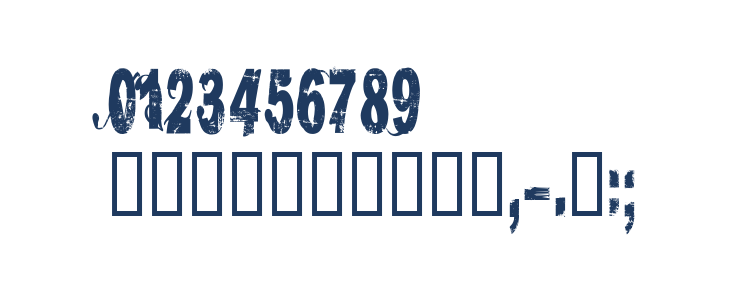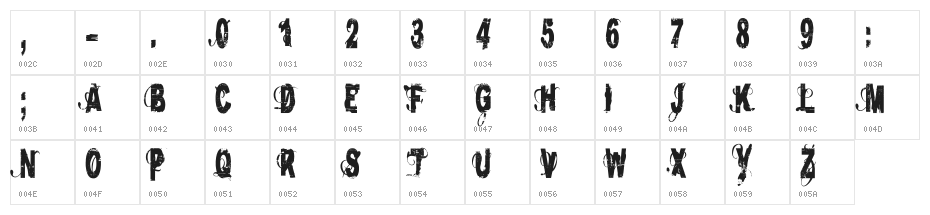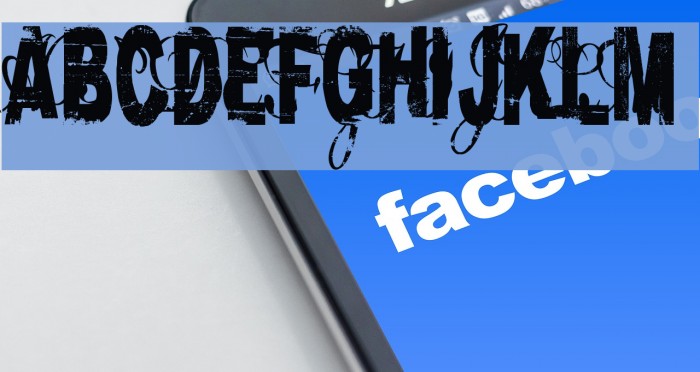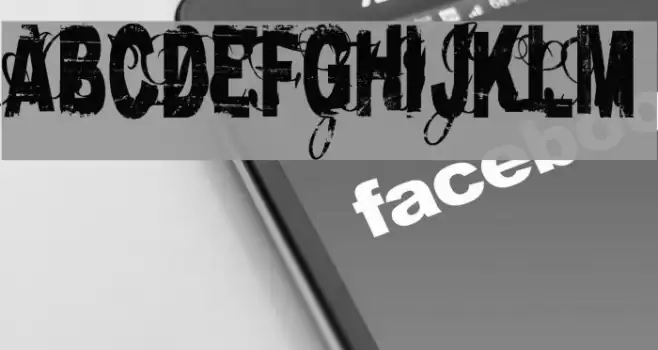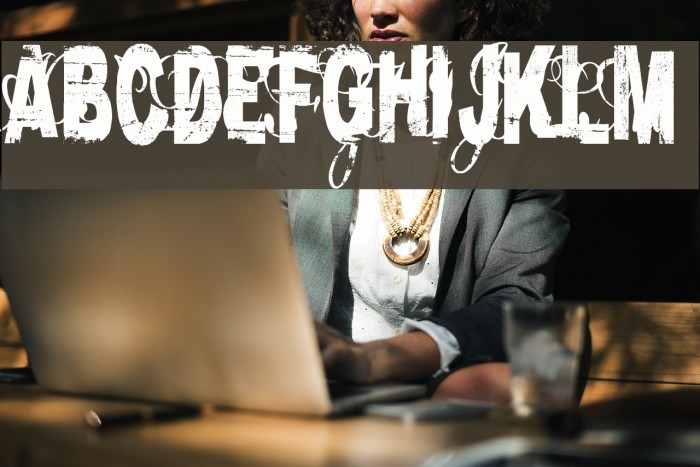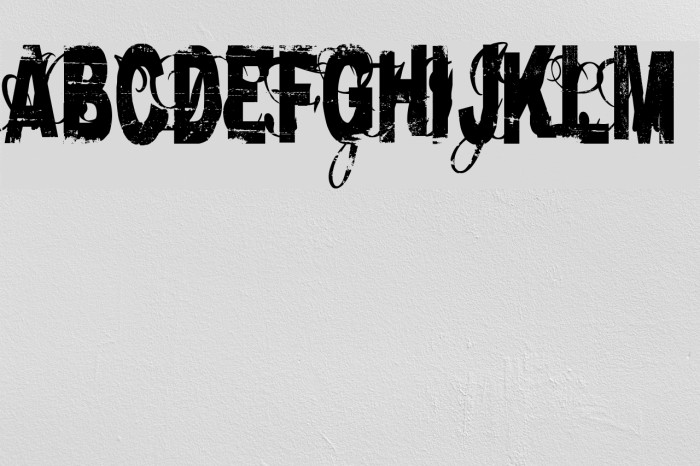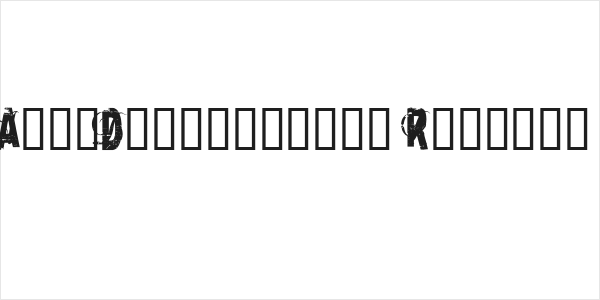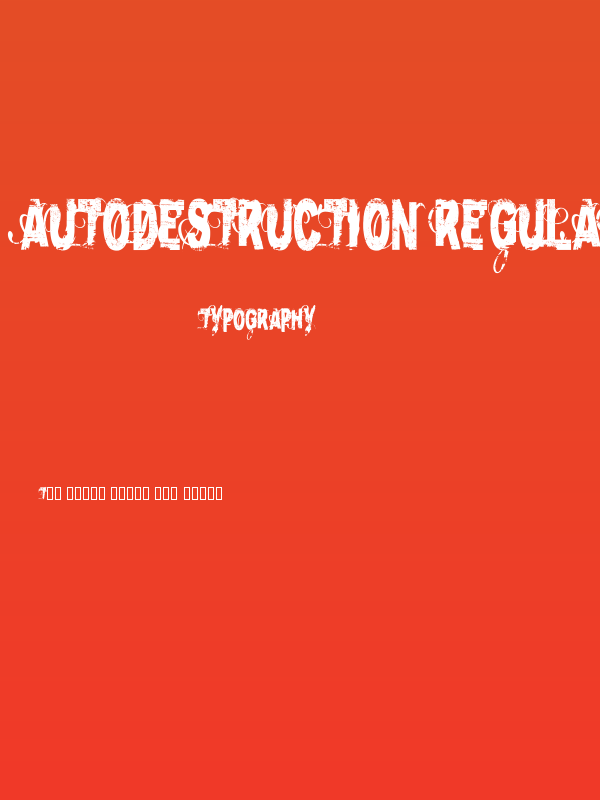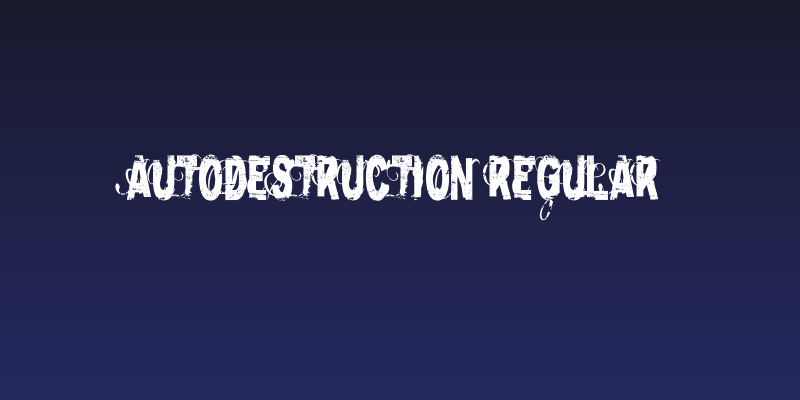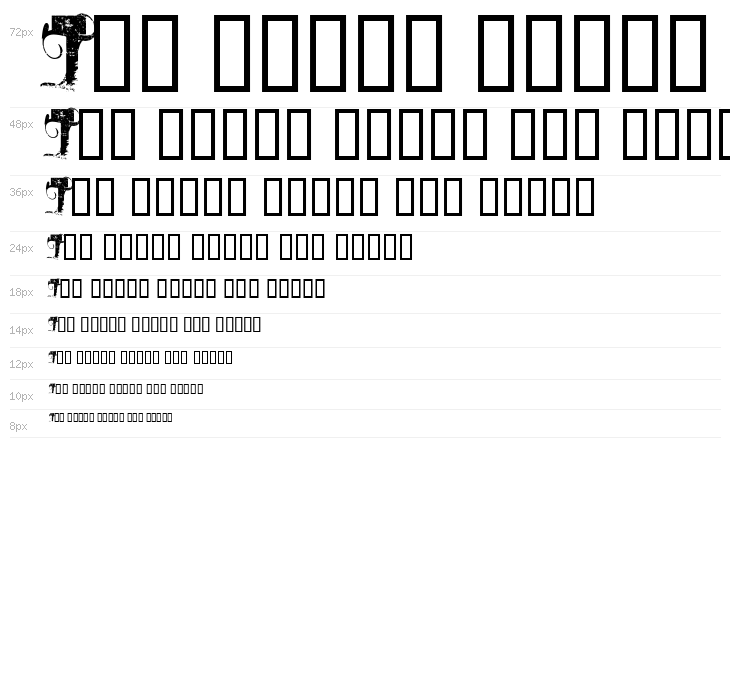
AutoDestruction Regular Font
AutoDestruction Regular Description
This font features a bold, distressed style with a grunge aesthetic. The uppercase letters are heavily textured, giving them a worn and chaotic appearance. The numbers follow the same distressed pattern, adding to the overall rugged feel. The design incorporates irregular edges and a rough texture, making it ideal for projects that require a raw, edgy look. The font's unique style is perfect for creating impactful headlines or artistic designs that stand out.
| Overall Style | Grunge, Edgy |
| Use Case | Headlines, Artistic designs, Branding |
| Proposed Projects | Ideal for album covers, posters, street art designs, and edgy branding projects. |